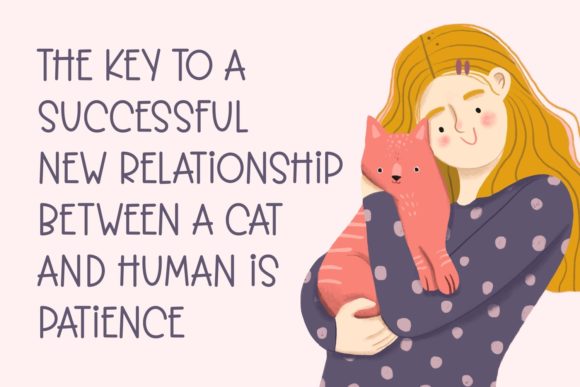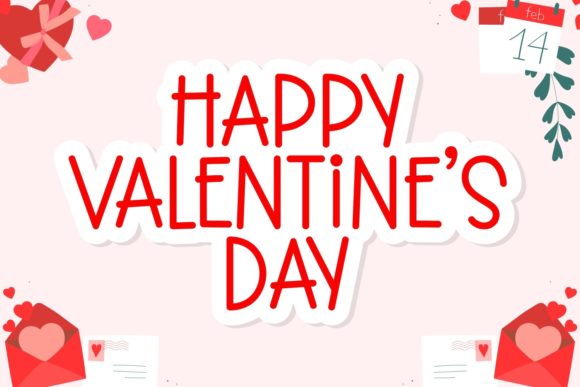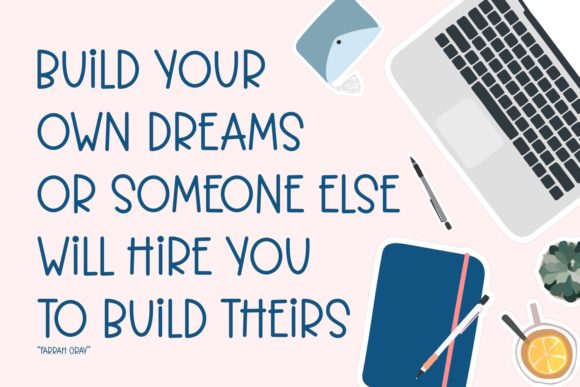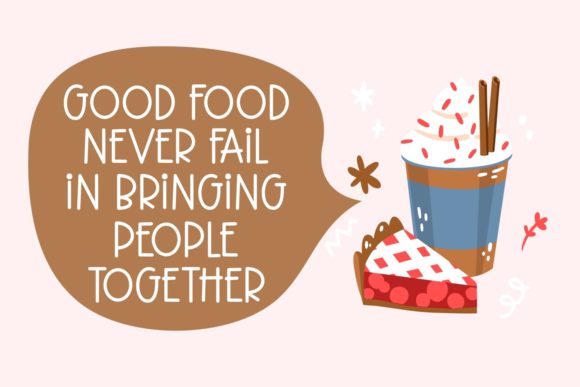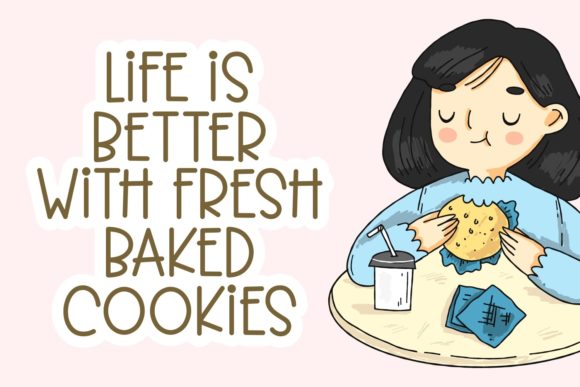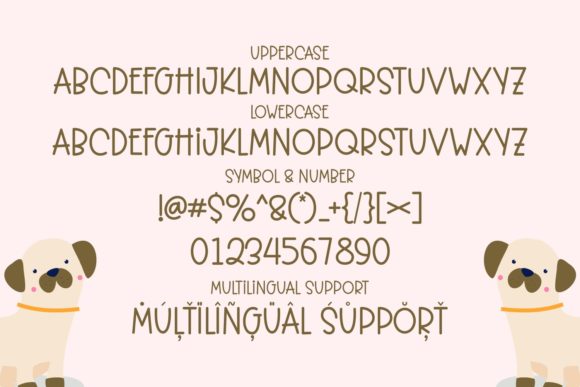
Introducing Arnold Story Font: The Perfect Choice for Fun and Playful Designs
Are you a designer or crafter looking for a font that can add a touch of playfulness and fun to your designs? Look no further than Arnold Story Font! This delightful handwritten font is perfect for creating stunning posters, flyers, and prints that are sure to capture the attention of your audience. In this article, we’ll take a closer look at Arnold Story Font and explore its features, benefits, and uses.
What is Arnold Story Font?
Arnold Story Font is a fun, simple, and adaptable handwritten font that is designed to bring a smile to your face. Its playful and carefree style makes it perfect for children’s themed designs, such as posters, flyers, and prints. The font’s simplicity and clarity also make it easy to read, making it a great choice for designs that require a clear and concise message.
Key Features of Arnold Story Font
- Fun and playful style: Arnold Story Font has a unique and playful style that is sure to add a touch of fun to your designs.
- Simple and adaptable: The font’s simplicity makes it easy to use and adapt to different design styles and themes.
- Handwritten style: The font’s handwritten style gives it a personal and friendly feel that is perfect for children’s themed designs.
- Easy to read: The font’s clarity and simplicity make it easy to read, even at small sizes.
Benefits of Using Arnold Story Font
So why choose Arnold Story Font for your designs? Here are just a few benefits of using this delightful font:
- Perfect for children’s themed designs: Arnold Story Font is specifically designed with children’s themed designs in mind, making it a great choice for posters, flyers, and prints aimed at kids.
- Adds a touch of playfulness: The font’s playful style adds a touch of fun and playfulness to your designs, making them more engaging and attention-grabbing.
- Easy to use: The font’s simplicity and adaptability make it easy to use, even for designers who are new to working with handwritten fonts.
- Versatile: Arnold Story Font can be used for a wide range of design projects, from posters and flyers to prints and digital graphics.
Using Arnold Story Font in Your Designs
So how can you use Arnold Story Font in your designs? Here are a few ideas to get you started:
- Create a children’s poster: Use Arnold Story Font to create a fun and engaging poster for a children’s event or product.
- Design a flyer for a kids’ party: The font’s playful style makes it perfect for designing flyers for kids’ parties and events.
- Add a personal touch to your prints: Use Arnold Story Font to add a personal and friendly touch to your prints, such as business cards, brochures, and more.
Tips for Getting the Most Out of Arnold Story Font
Here are a few tips for getting the most out of Arnold Story Font:
- Combine with bright colors: The font’s playful style is perfect for combining with bright and bold colors to create a fun and engaging design.
- Experiment with different sizes: Arnold Story Font is clear and easy to read at a range of sizes, so don’t be afraid to experiment with different sizes to find the one that works best for your design.
- Use with other playful fonts: The font’s playful style makes it perfect for pairing with other playful fonts to create a fun and engaging design.
Arnold Story Font is a fun, simple, and adaptable handwritten font that is perfect for designers and crafters looking to add a touch of playfulness to their designs. With its playful style, simplicity, and clarity, this font is sure to bring a smile to your face and engage your audience. Whether you’re creating posters, flyers, or prints, Arnold Story Font is a great choice for any design project that requires a fun and friendly feel.